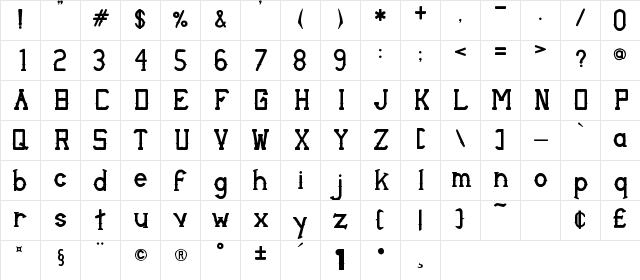
Thorny Bits Regular Regular
Design Context for Thorny Bits Regular Typeface
Thorny Bits Regular is a composed and adaptable typeface that performs quietly and consistently across a wide range of design contexts.